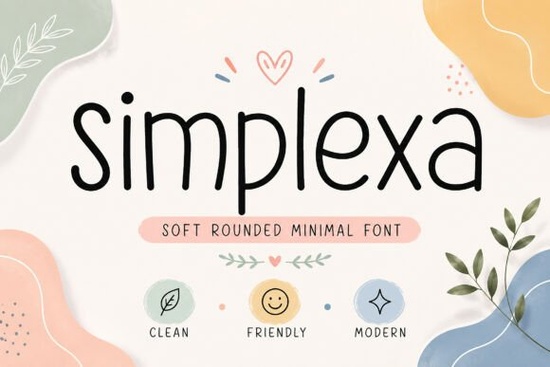
If you're looking for a handwritten font that feels warm and approachable without being overly busy, Simplexa Font is a great choice. It’s designed with clean lines, soft curves, and a relaxed rhythm that makes it perfect for projects where personality matters whether you’re creating social media graphics, packaging, or brand elements. Its minimalist structure keeps things modern while still feeling friendly and inviting.
What kind of projects works best with Simplexa?
Simplexa shines in designs that aim for a cozy, human touch. Think of it as the digital equivalent of a hand-written note on a sticky pad friendly, unforced, and full of character. It fits naturally into:
- Branding for lifestyle brands, baby products, or small boutiques
- Children’s books, school materials, or educational content
- Social media posts and Instagram stories with a personal feel
- Packaging for handmade soaps, candles, or gift boxes
- Website headers and quote graphics that need warmth
- Editorial layouts like newsletters or zines with a minimalist tone
The font’s rounded edges and balanced spacing make it easy to read at smaller sizes while still standing out when used large. You won’t find sharp angles or exaggerated flourishes just a calm, consistent presence that supports your message instead of distracting from it.
How does Simplexa compare to other handwritten fonts?
While many script fonts lean toward elegance or formality, Simplexa takes a different path. It’s not meant to be fancy it’s meant to feel real. Compared to more dramatic options like Disney Font Script Fonts, it’s less ornate and more grounded. Unlike some playful styles that can feel childish, Simplexa maintains a subtle sophistication that works well for both kids’ content and adult-oriented branding.
If you’ve tried Dreamina Handwritten Font Script Fonts or Glenthya Habithan Font Script Fonts, you’ll notice Simplexa has a lighter, more airy rhythm. It doesn’t demand attention but invites you to linger. For those who prefer something less intense than DaddyDays Font Script Fonts, it offers a gentler alternative. And if you like the clean style of Medasron Font Script Fonts, you’ll appreciate how Simplexa balances simplicity with charm.
Why designers choose Simplexa for everyday work
One of the biggest advantages? It’s versatile. You can use it across digital and print formats without worrying about legibility issues. Whether you’re designing a flyer for a local market or adding text to a printable planner, Simplexa holds up well. The font includes standard OpenType features like ligatures and alternate characters, which help maintain visual consistency across long texts.
It also pairs well with sans-serif typefaces. Try combining it with a clean font like Lato or Inter for contrast and balance. This pairing works especially well in modern minimal layouts where you want one element to stand out without overwhelming the design.
How to get the most out of Simplexa
Use it sparingly for maximum impact. Because of its friendly nature, overusing it can make a design feel cluttered or too casual. Stick to headlines, quotes, or key messages rather than body text.
- For print: Use it in packaging, business cards, or invitations where a personal touch adds value.
- For digital: Ideal for Pinterest pins, Reels captions, or blog headers that want to feel authentic.
- For branding: Pair it with neutral colors and simple shapes to highlight its natural charm.
Remember: simplicity isn’t boring it’s intentional. Simplexa gives you room to focus on content, emotion, and storytelling without needing flashy effects.
Ready to try it? Simplexa Font is available through Creative Fabrica, where you can explore more fonts that match your creative vibe. If you’re working on anything related to handmade goods, lifestyle content, or kid-friendly designs, this one’s worth testing.
Quick checklist before using Simplexa:
- Test the font at different sizes especially for print
- Pair it with a clean, non-distracting background
- Limit usage to headlines or short phrases
- Check how it looks in dark mode (if applicable)
- Save a version with fallback fonts in case of compatibility issues
Start with a single project a birthday card, a product label, or a social post and see how it feels. Chances are, you’ll find yourself reaching for it again and again.